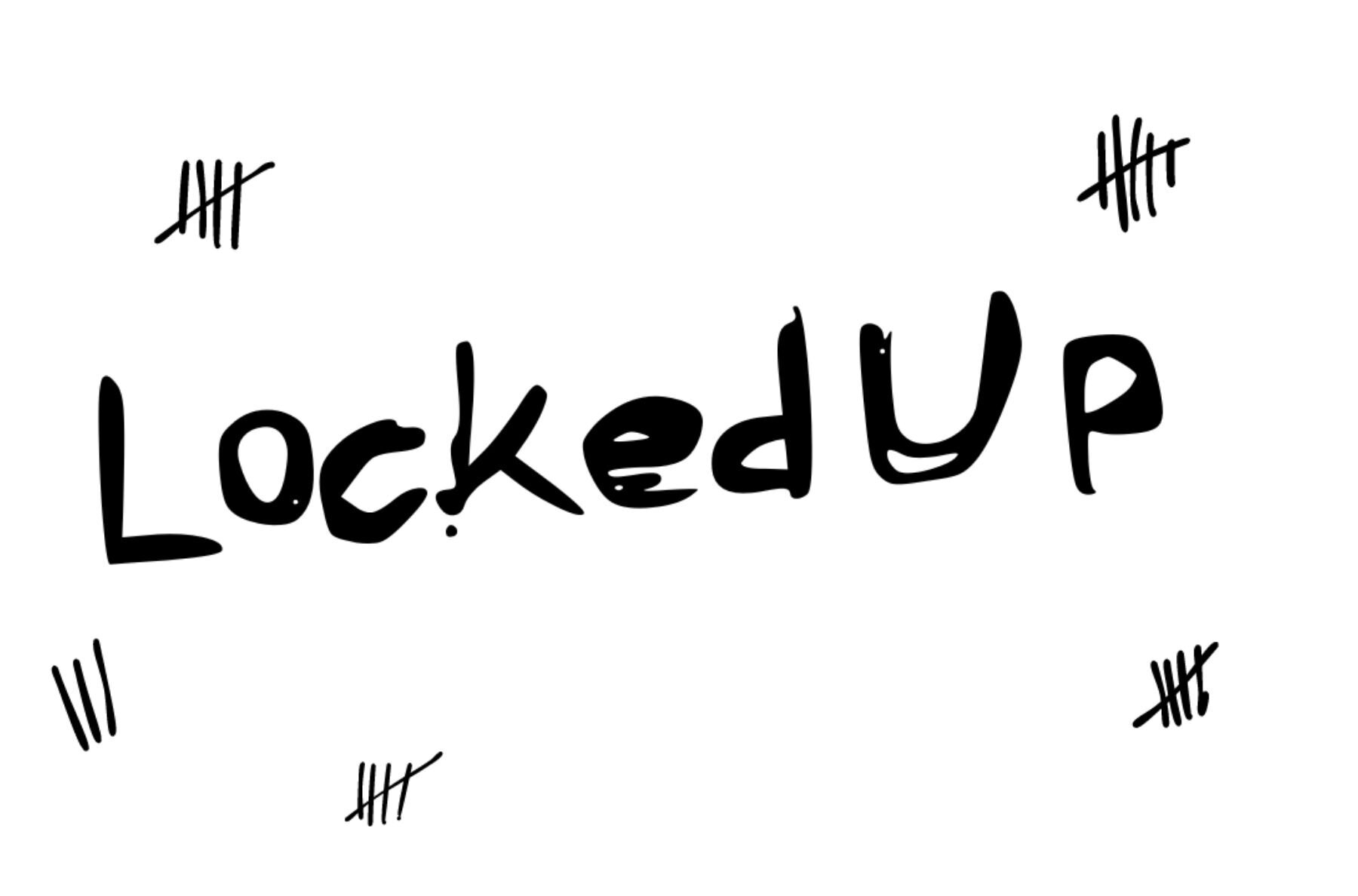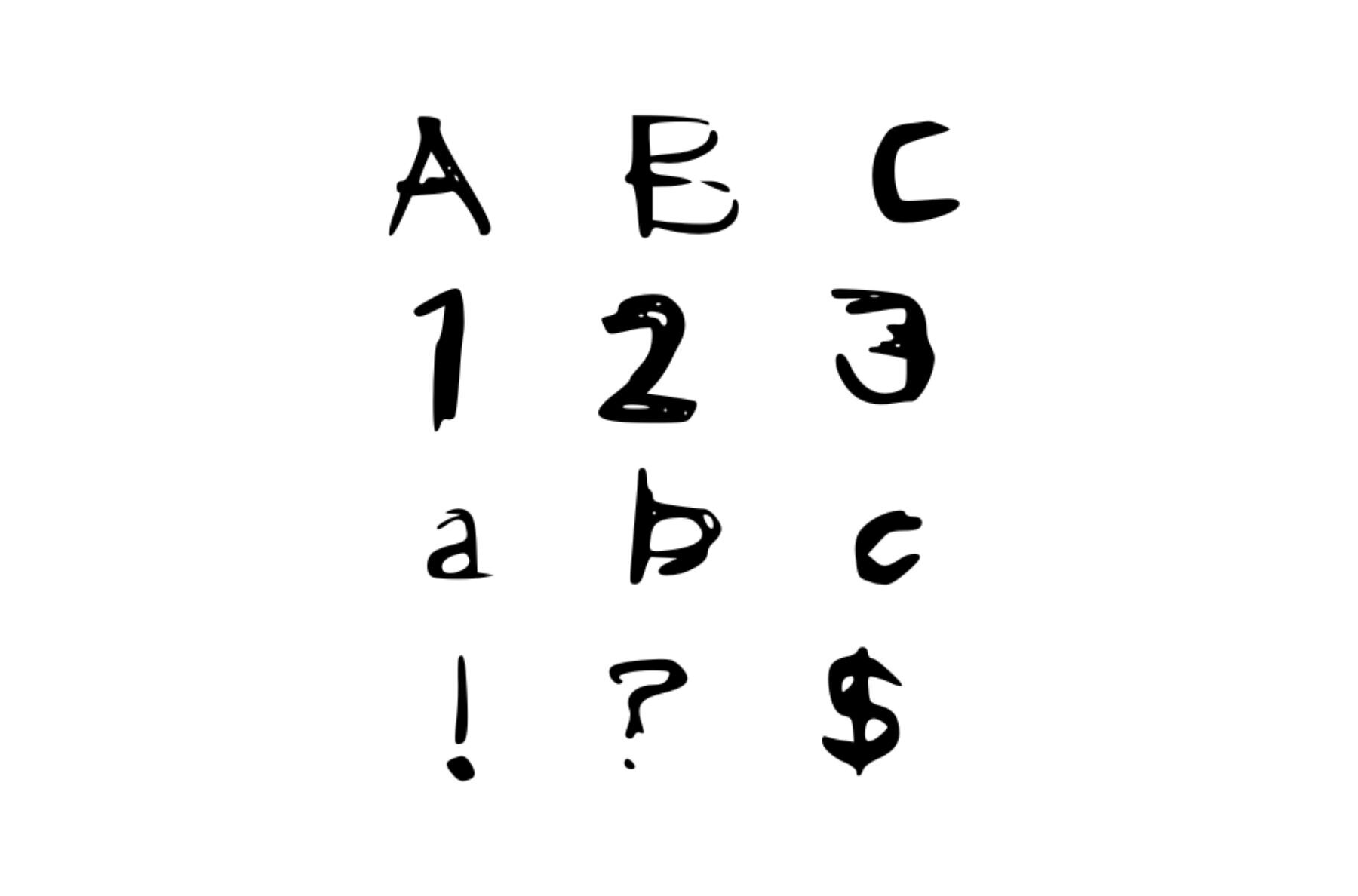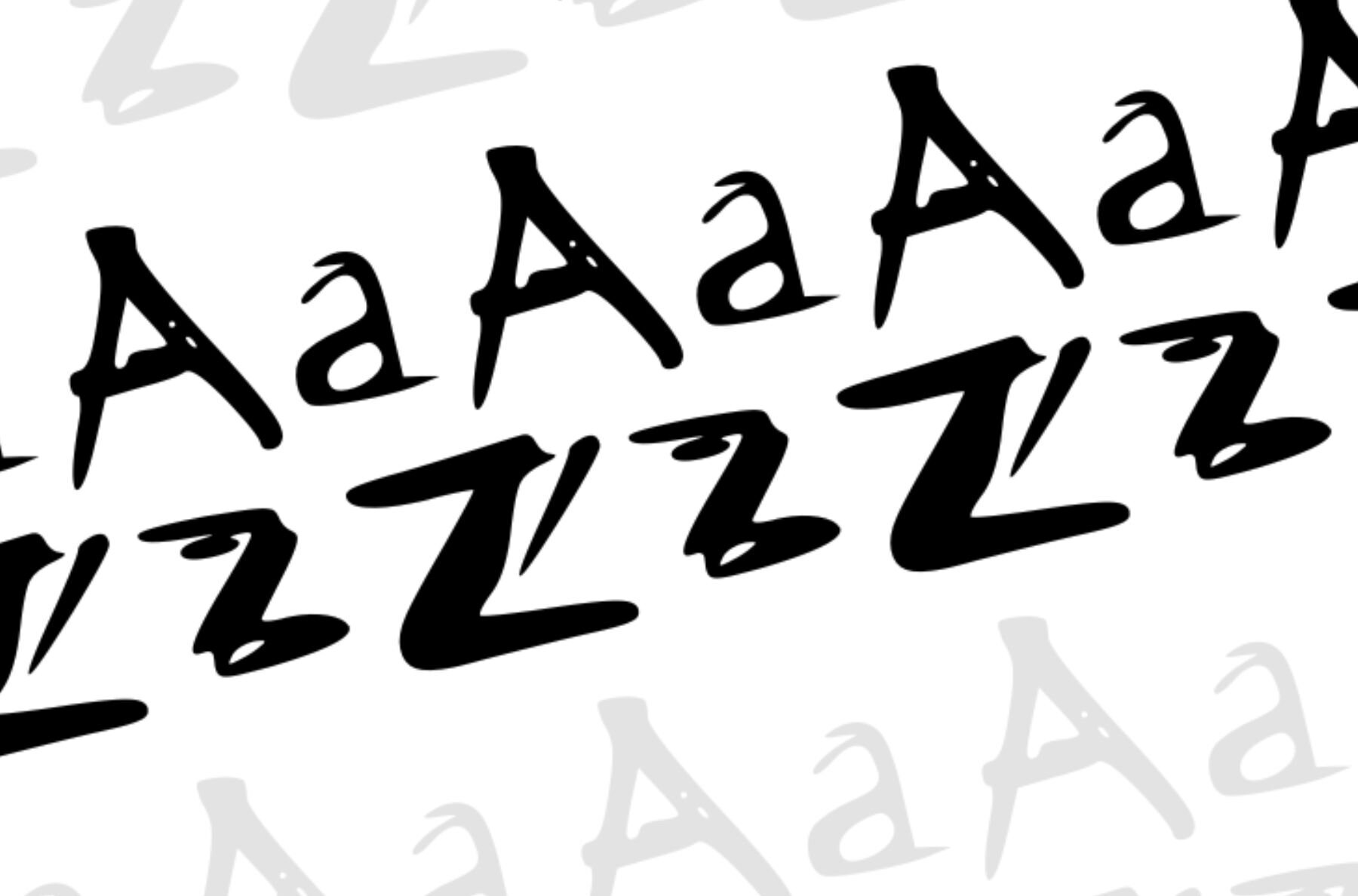
Lockedup Font
LockedUp
Experience the gritty allure of Locked Up, a hand-drawn font designed with a rough, textured style reminiscent of tally marks etched into cold prison walls. This font exudes an authentic and eerie vibe, making it an ideal choice for those who seek to infuse their projects with a distinct, unsettling edge.Locked Up Font: Unleash the Raw Intensity